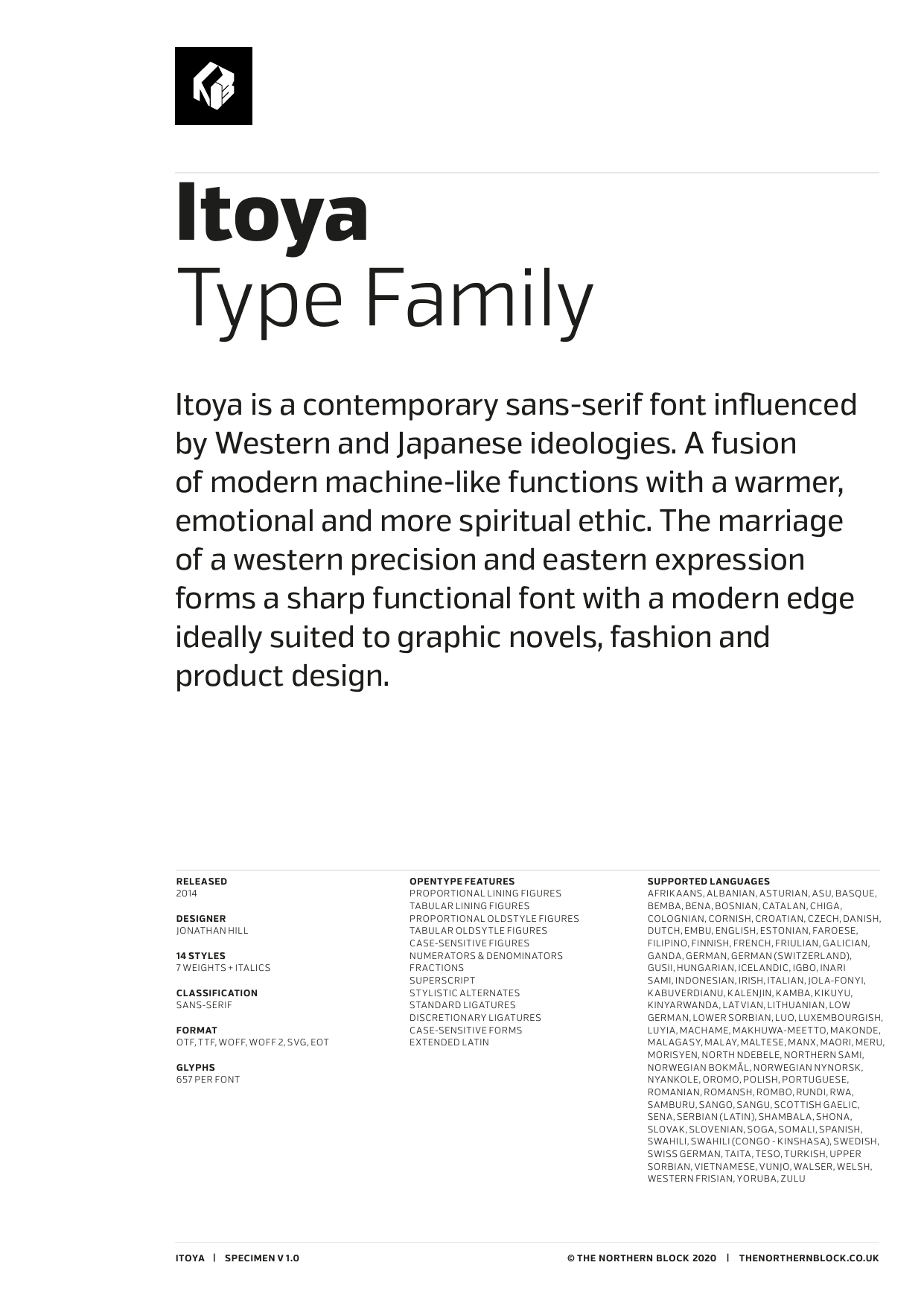
Itoya
Itoya is a contemporary sans serif font that seamlessly blends Western and Japanese design ideologies. This fusion results in a font that embodies a harmonious marriage of modern machine-like precision with a warm, emotional, and spiritual aesthetic. The typeface features a sleek, functional design with sharp edges and contemporary flair. Its versatility makes it well-suited for various creative applications, such as graphic novels, fashion, and product design. Itoya aims to celebrate the strengths of both Western and Eastern design philosophies, creating a unique and culturally rich typographic style without relying on stereotypes.
The font includes over 600 characters per style and seven weights with matching italics. OpenType features include five number variations: inferiors, superiors, fractions, tabular, lining, and old style. It also has alternate lowercase a, e, g, and y and language support covering Western, Southern, Central Europe, and Vietnamese.